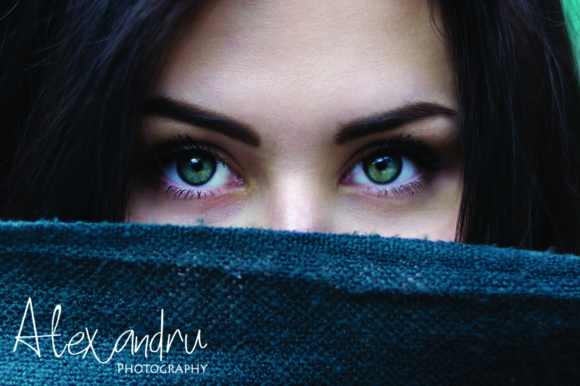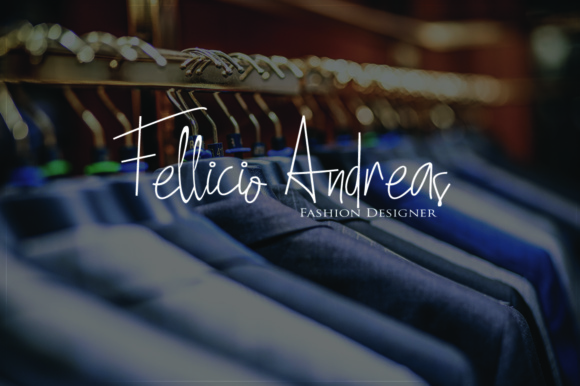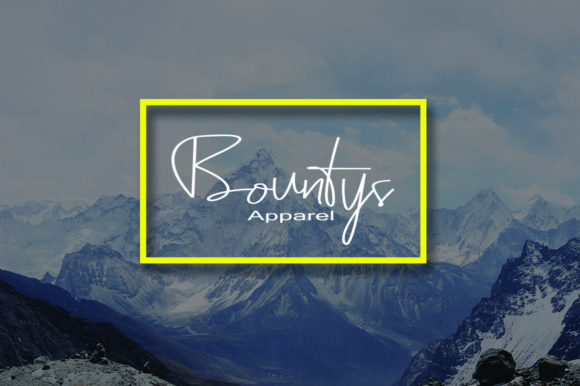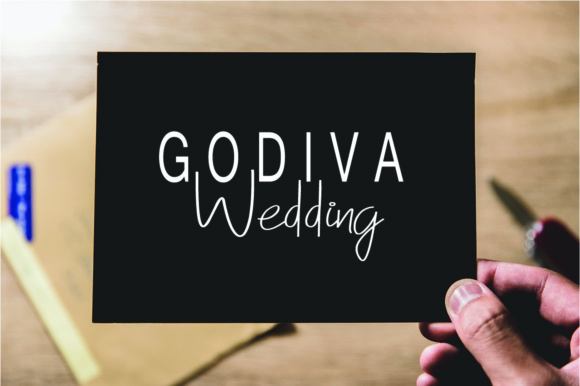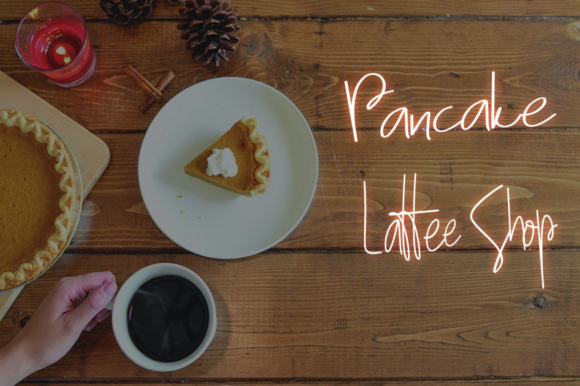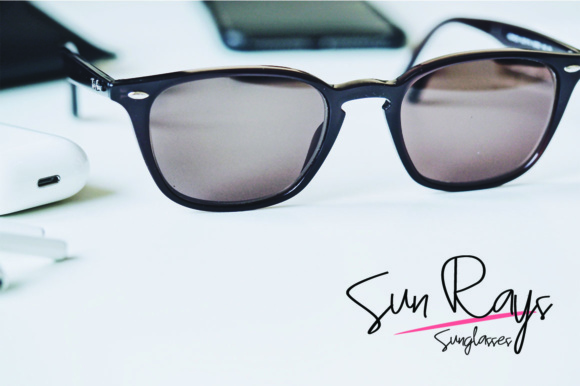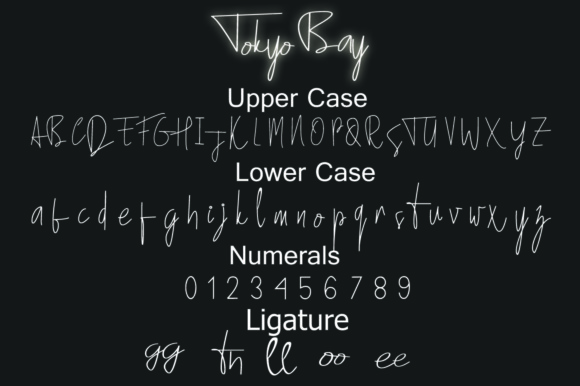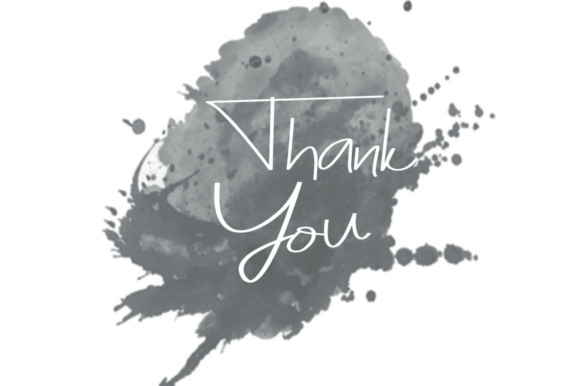
Tokyo Bay Font
About Tokyo Bay Font
Tokyo Bay is an elegant and stylish signature font. Tokyo Bay has a unique character, which can be perfect to use in branding, logos, and many other designs. Just mix and match the glyphs for your perfect project!